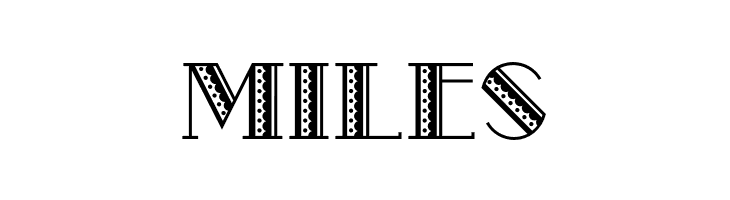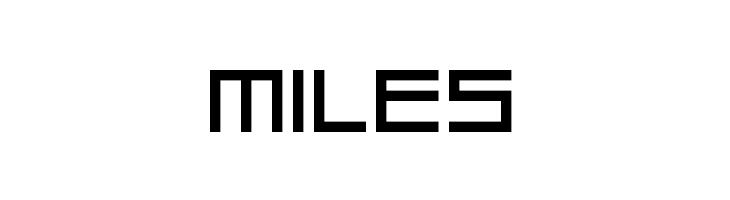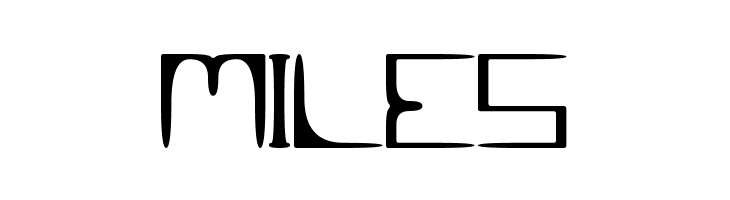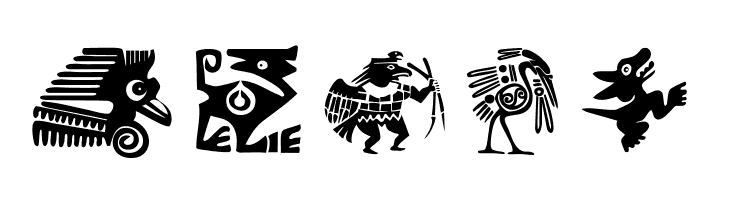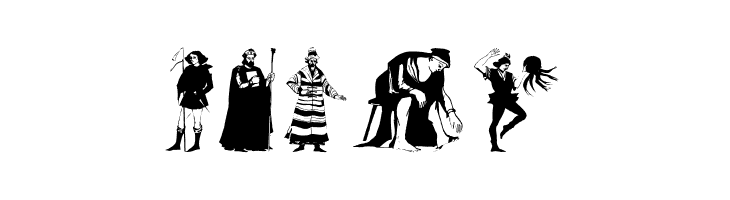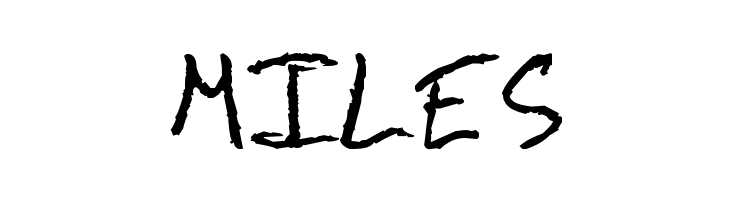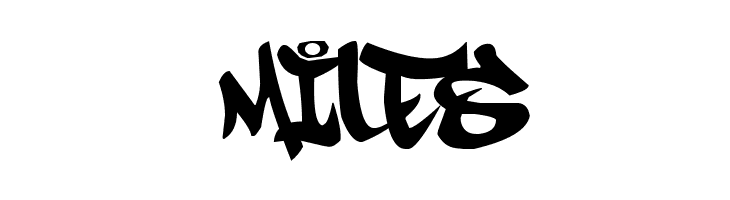
• MesoFaunaTwo
A decorative set of glyphs inspired by Mesoamerican fauna, featuring intricate and bold designs.
• Messenger
• MESTIZOS UNIDOS -URBAN HOOKUPZ
A bold graffiti-style font with dynamic, energetic characters.
• Metro Retro NF
A decorative font with retro and modern influences, featuring bold geometric shapes and intricate patterns.
• Metroid Prime: Hunters TTF
• Metropolis NF
A bold, geometric font with decorative circular elements.
• MetroRetroNF
A bold, decorative font with retro patterns and intricate detailing.
• MetroSlum
A bold, futuristic font with geometric and abstract elements.
• Middle Earth NF
A bold, outlined font with a fantasy-inspired, geometric style.
• MiddleAgers